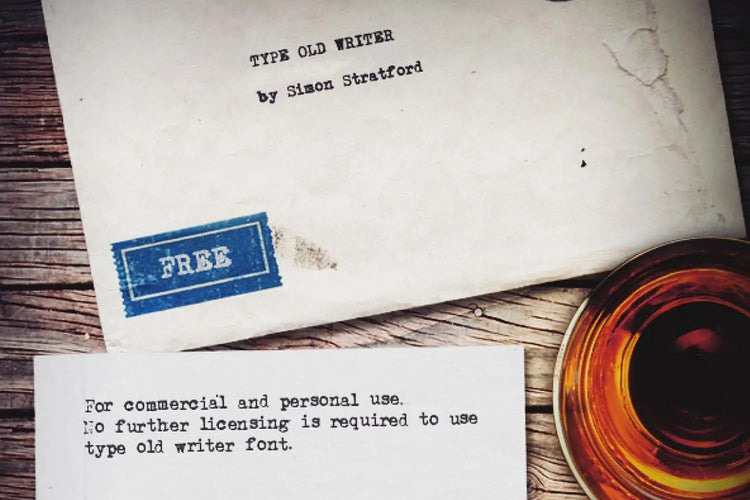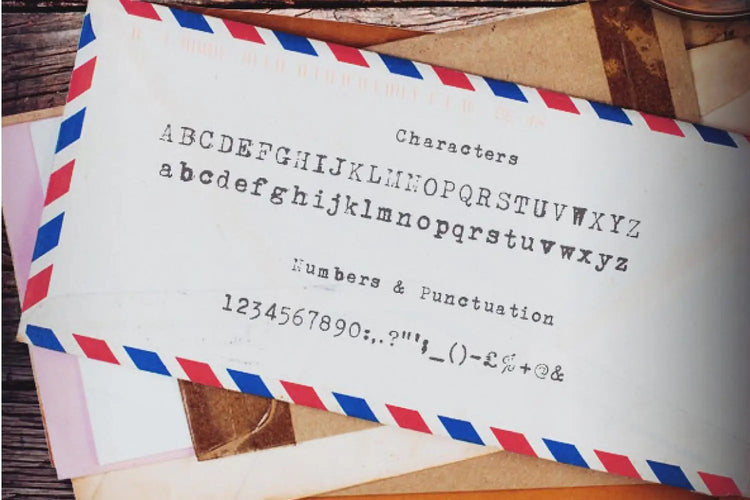
Type old writer — Vintage Typewriter Font
About Type old writer
Type Old Writer font was created with a real typewriter that I purchased from eBay.
In today's fast-paced digital world, there's something undeniably charming and evocative about the typewriters of yesteryear. The Type Old Writer font takes us on a nostalgic journey back in time, paying homage to the classic aesthetics of vintage typewriters.
Created with meticulous attention to detail, this unique font is a captivating blend of old-world charm and modern usability, making it a perfect choice for designers and creatives looking to infuse their projects with a touch of nostalgia.
By incorporating this font into your creative projects, you infuse them with a sense of nostalgia. So, embrace the beauty of retro typography and let Type Old Writer tell your story in a style that's as enduring as it is enchanting.
If Type Old Writer were a celebrity?
If Type Old Writer font were a celebrity, it would embody the timeless and classic charm of Audrey Hepburn.